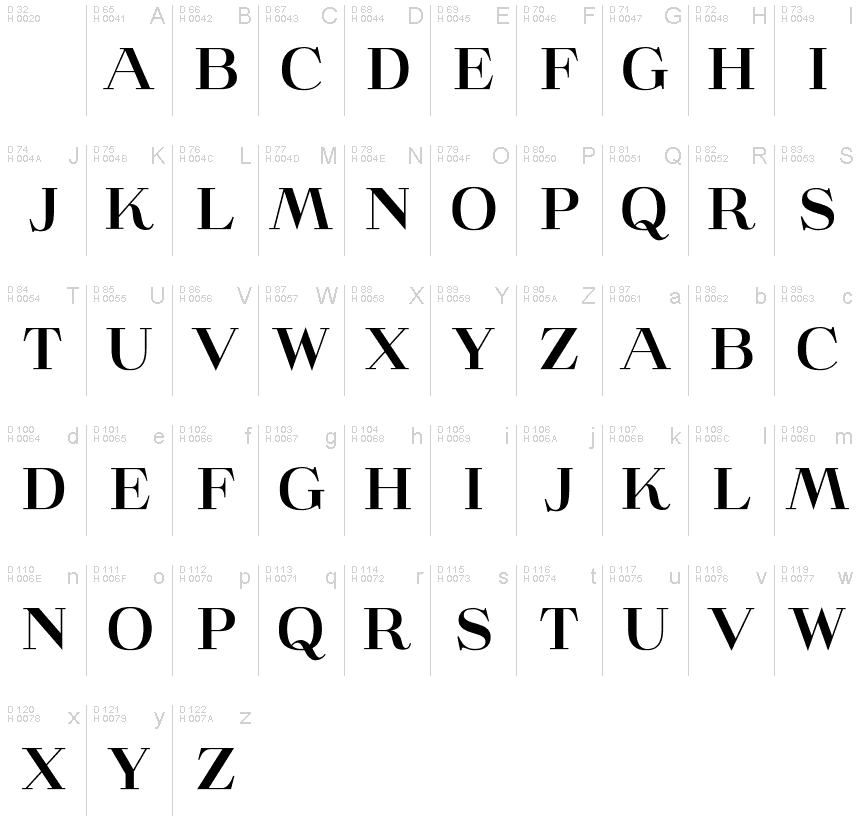
Jealousy Regular
Jealousy, a stunning serif font designed by Vladimir Nikolic, adds an air of sophistication and elegance to any project.
With its clean lines and impeccable quality, this font is ideal for luxury branding and high-end editorial designs. Its timeless appeal makes it perfect for wedding invitations, fashion magazines, or upscale restaurant menus. Whether you're creating a logo or designing a book cover, Jealousy will captivate your audience with its refined charm.
Elevate your designs with this remarkable serif font that exudes style and class.